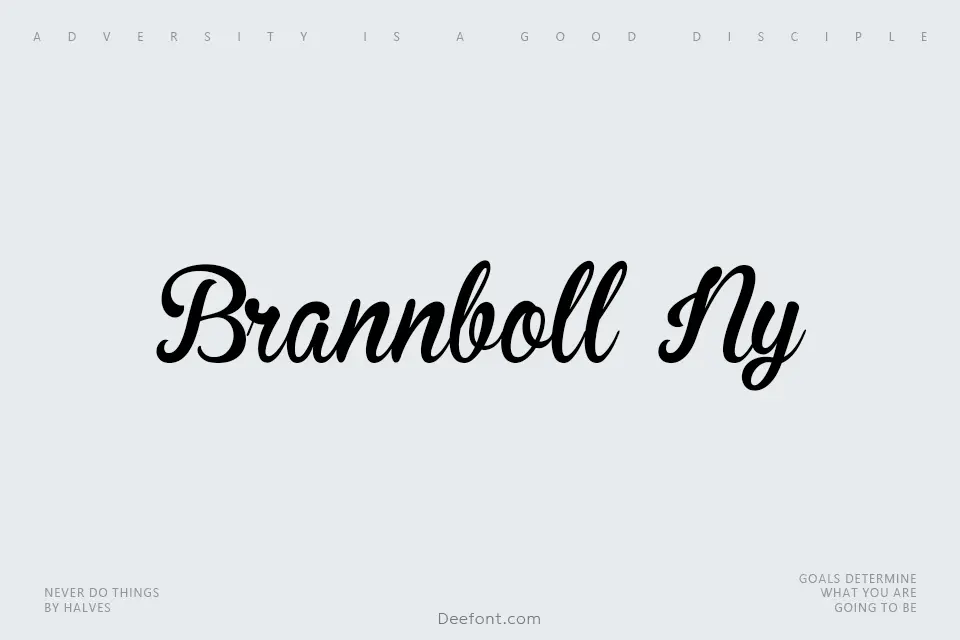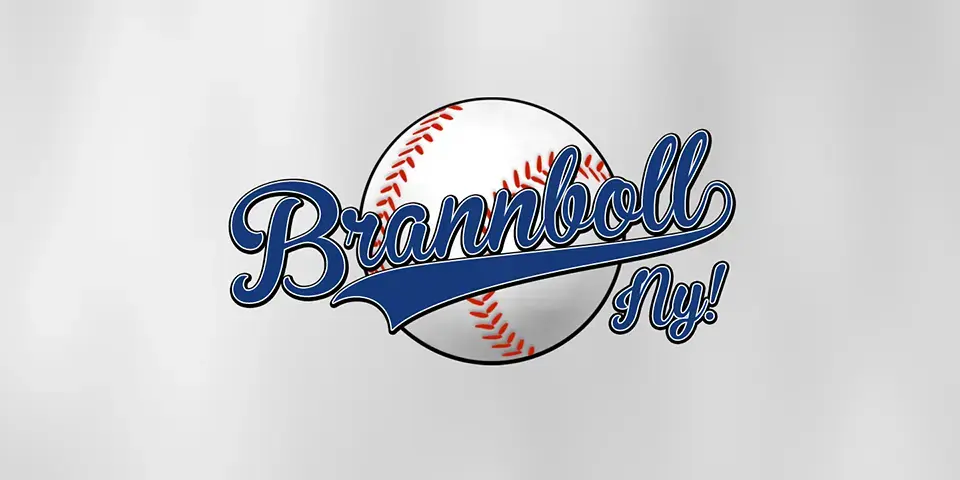
Brannboll Ny Font
Brannboll Ny Font is a bold retro script inspired by classic baseball lettering, combining smooth connected strokes with dramatic swashes. Its playful yet polished look makes it ideal for sports branding, vintage logos, team jerseys, posters, signage, merchandise and any headline needing energetic handmade character.